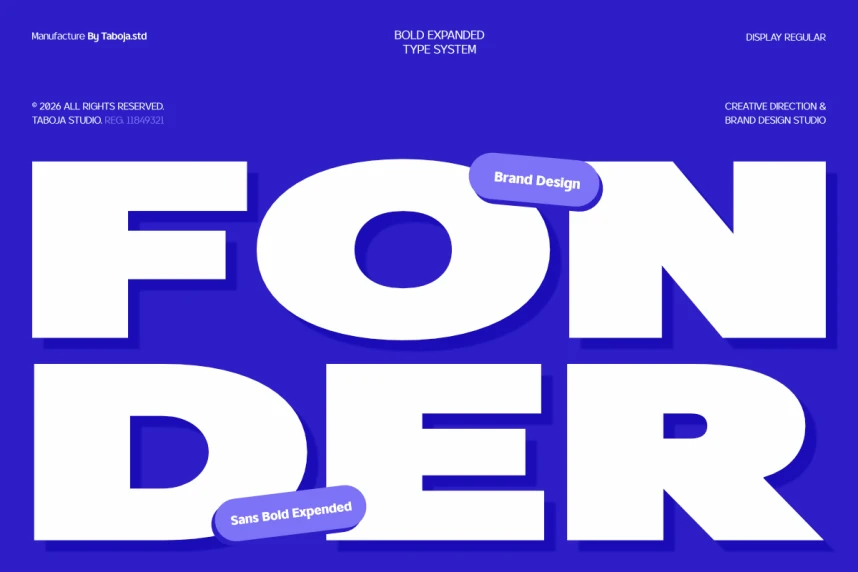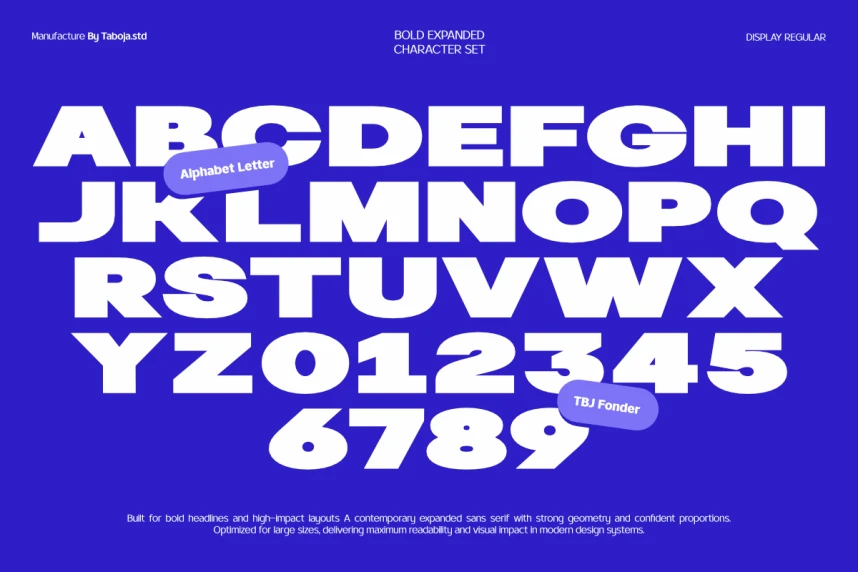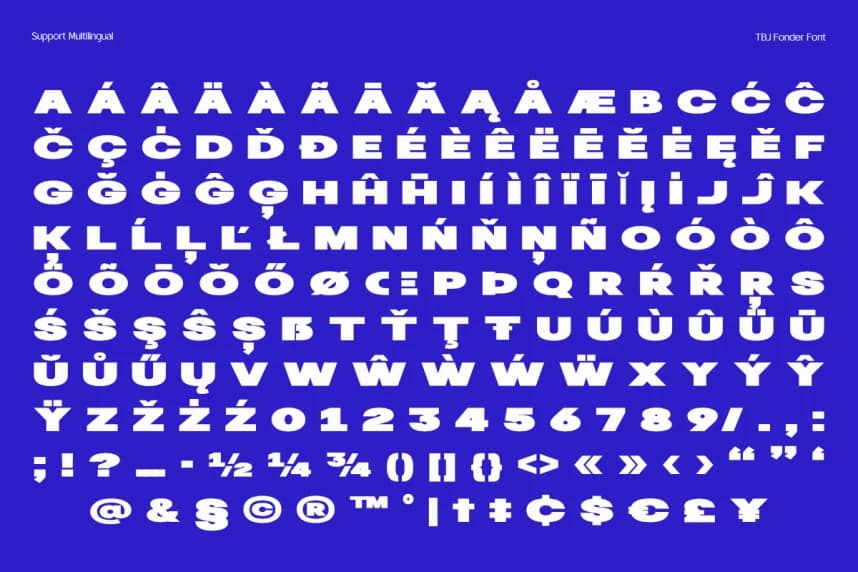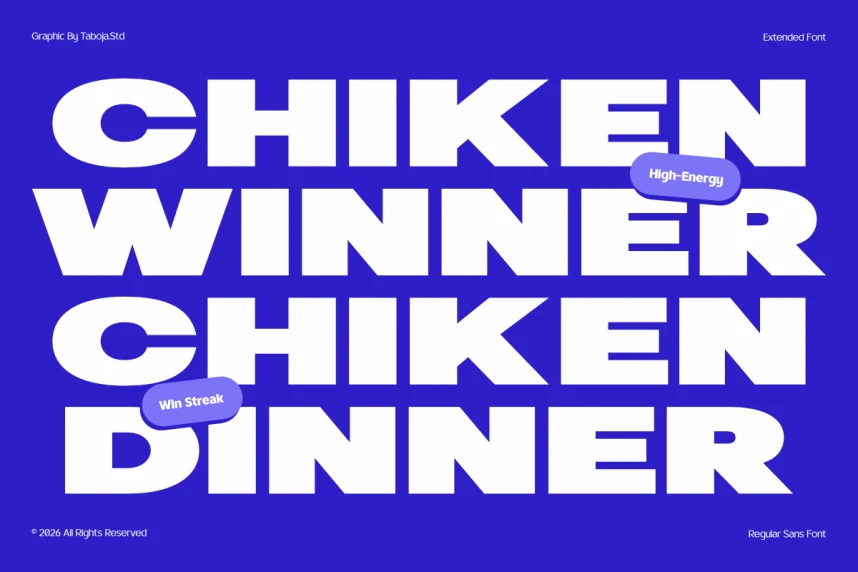
Fonder Font
FONDER Font is a bold expanded display typeface built for strong visual impact and modern brand communication. Designed with wide proportions, confident geometry, and clean construction, Fonder delivers a powerful presence across contemporary design systems.